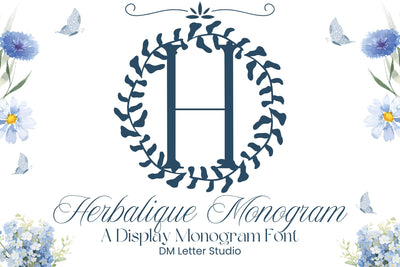
Herbalique Monogram
Herbalique Monogram – Elegant Botanical Monogram Font
Herbalique Monogram is a refined serif monogram font infused with graceful herbal and leafy accents. Each uppercase letter is beautifully designed with botanical detailing, blending classic typography with nature’s elegance. Perfect for weddings, branding, stationery, and personalized crafts, Herbalique Monogram brings a timeless yet organic feel to your projects.
Herbal-Inspired Accents: Elegant leafy motifs enhance each serif character.
Classic Serif Base: Clean, traditional monogram shapes balanced with decorative botanical flourishes.
Complete Character Set: A–Z uppercase letters, numerals, punctuation, and multilingual support.